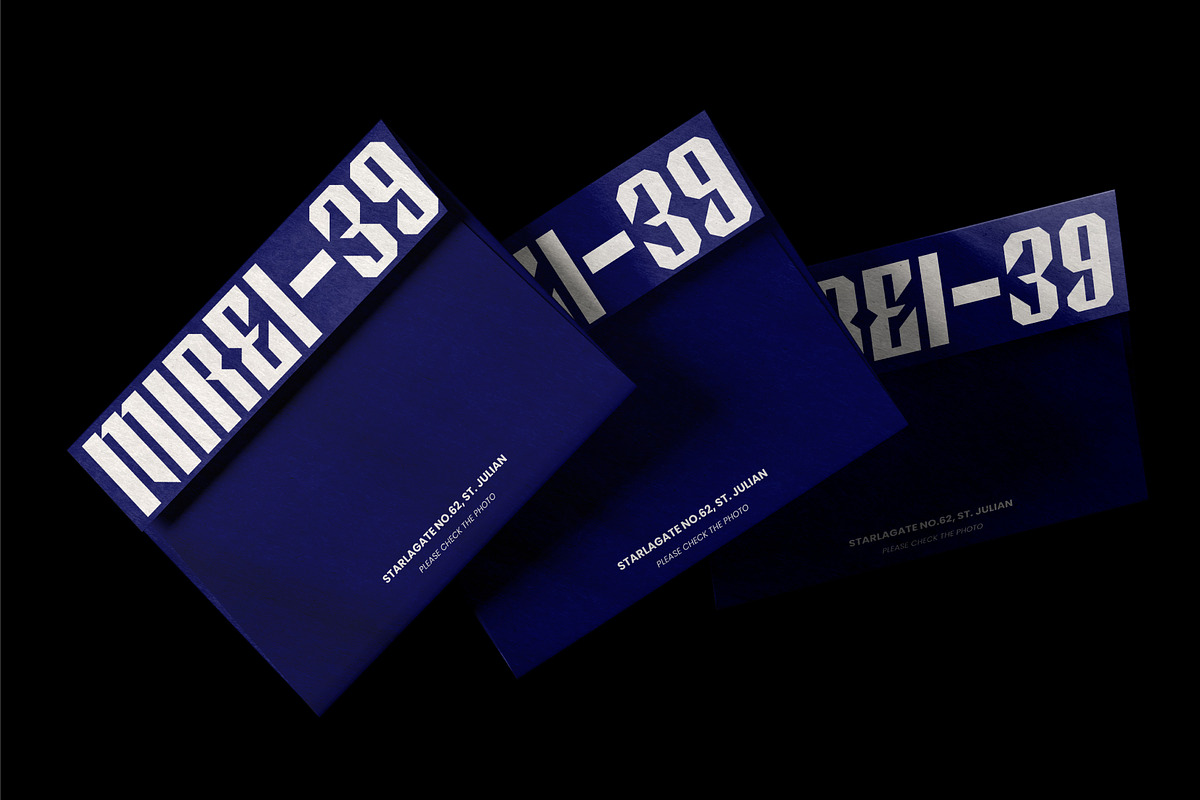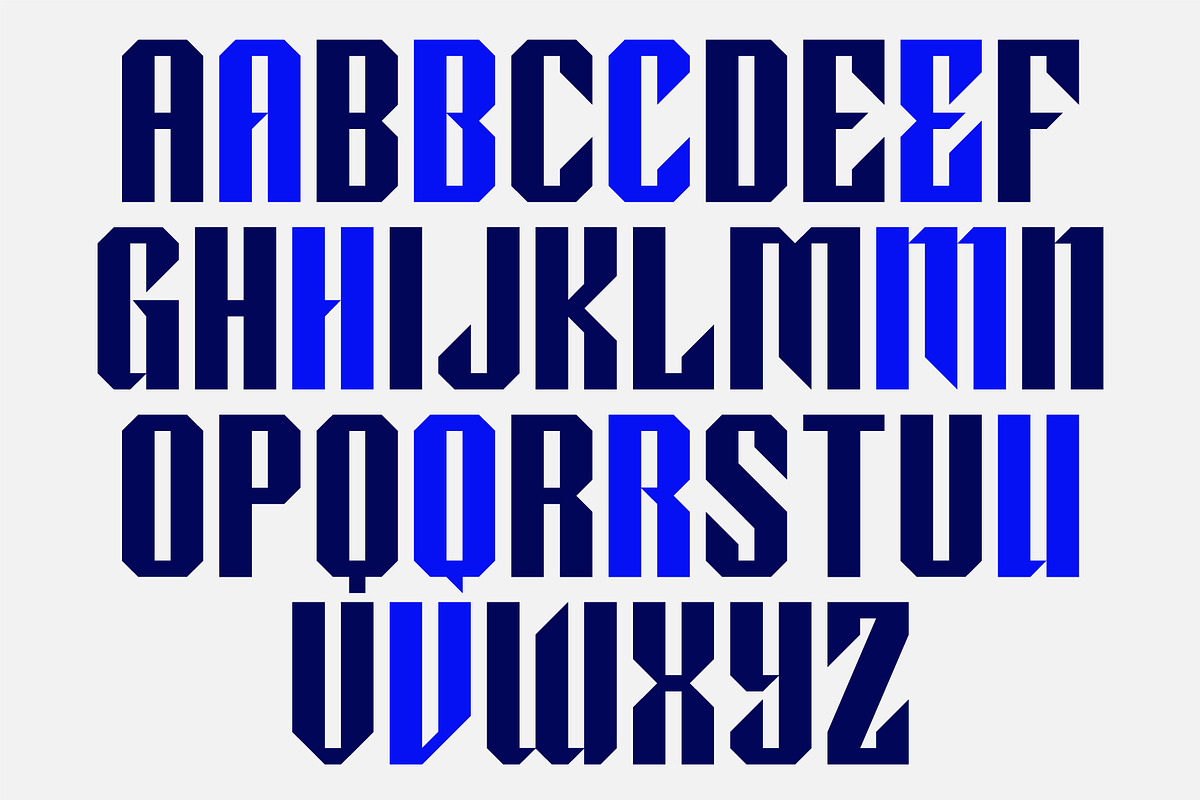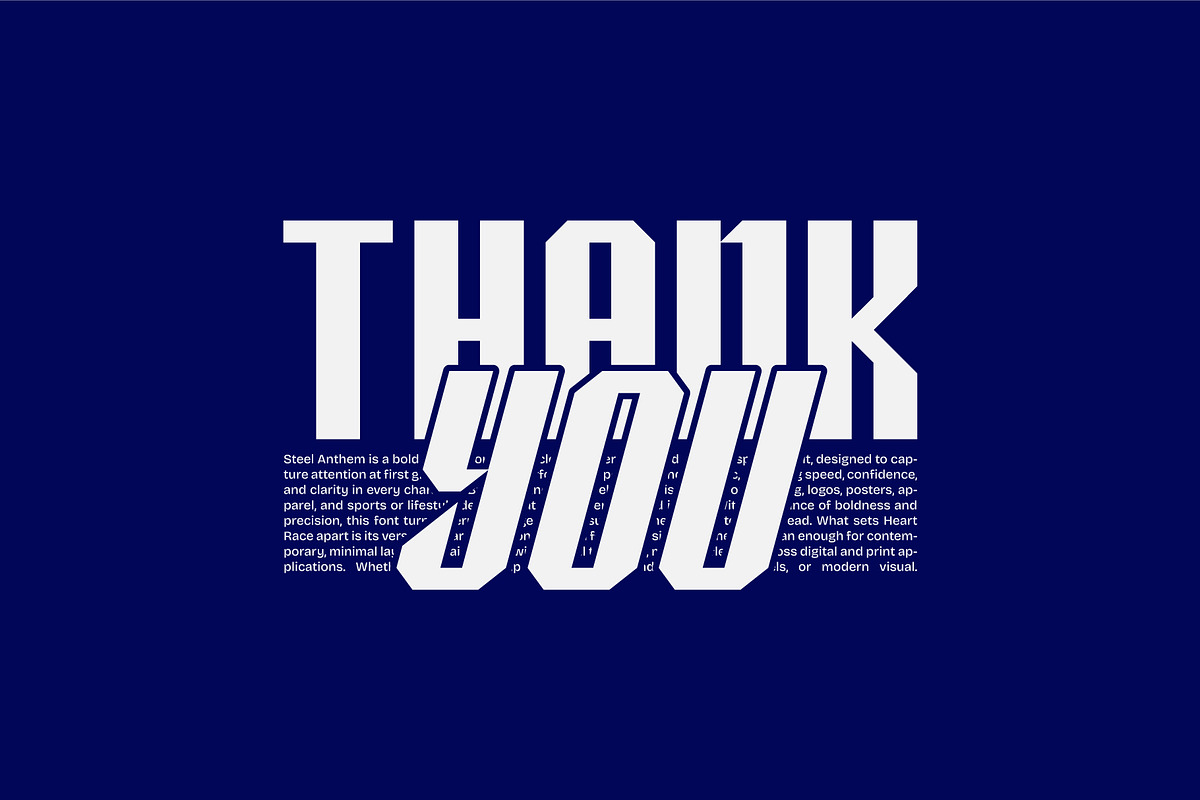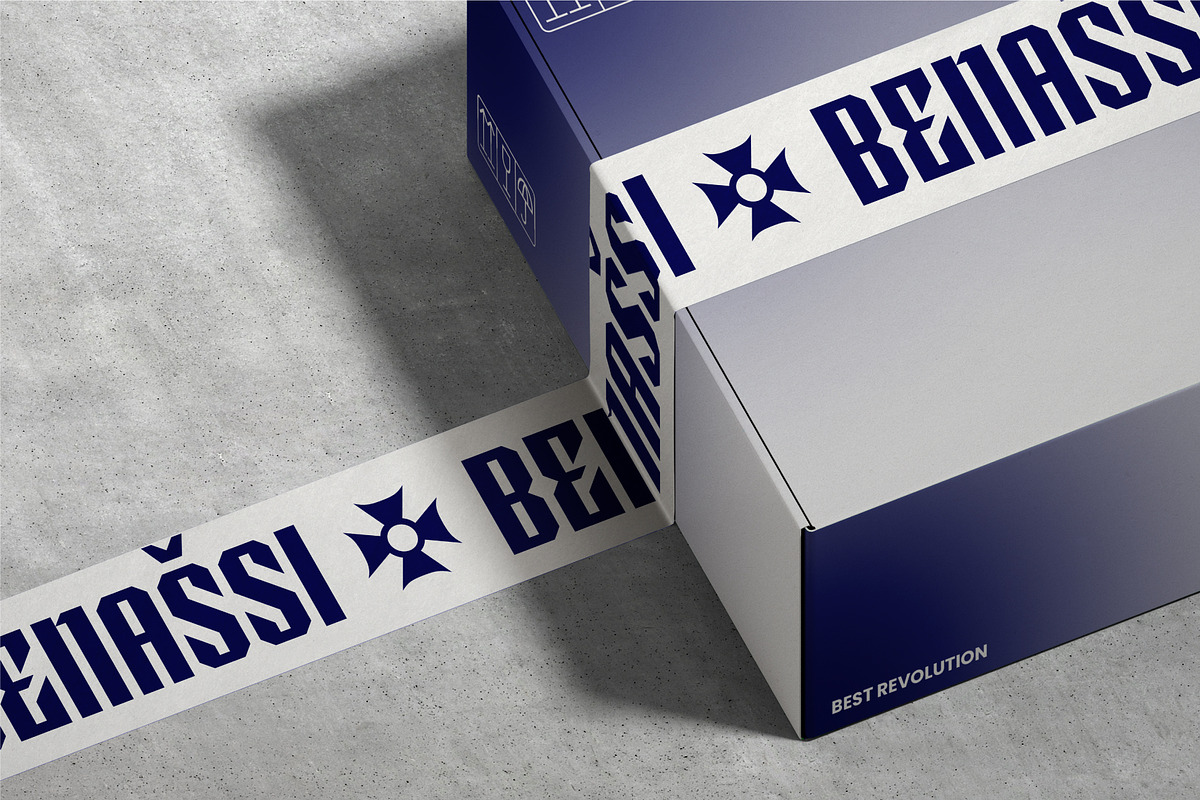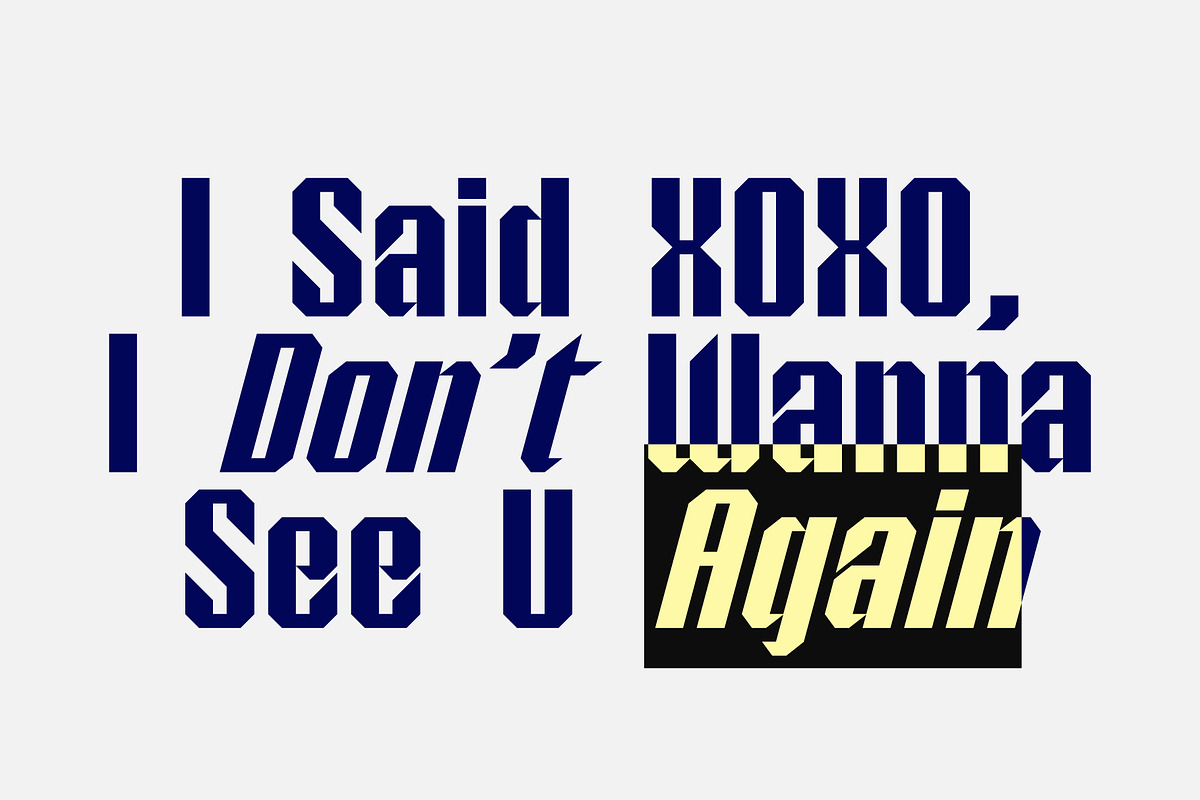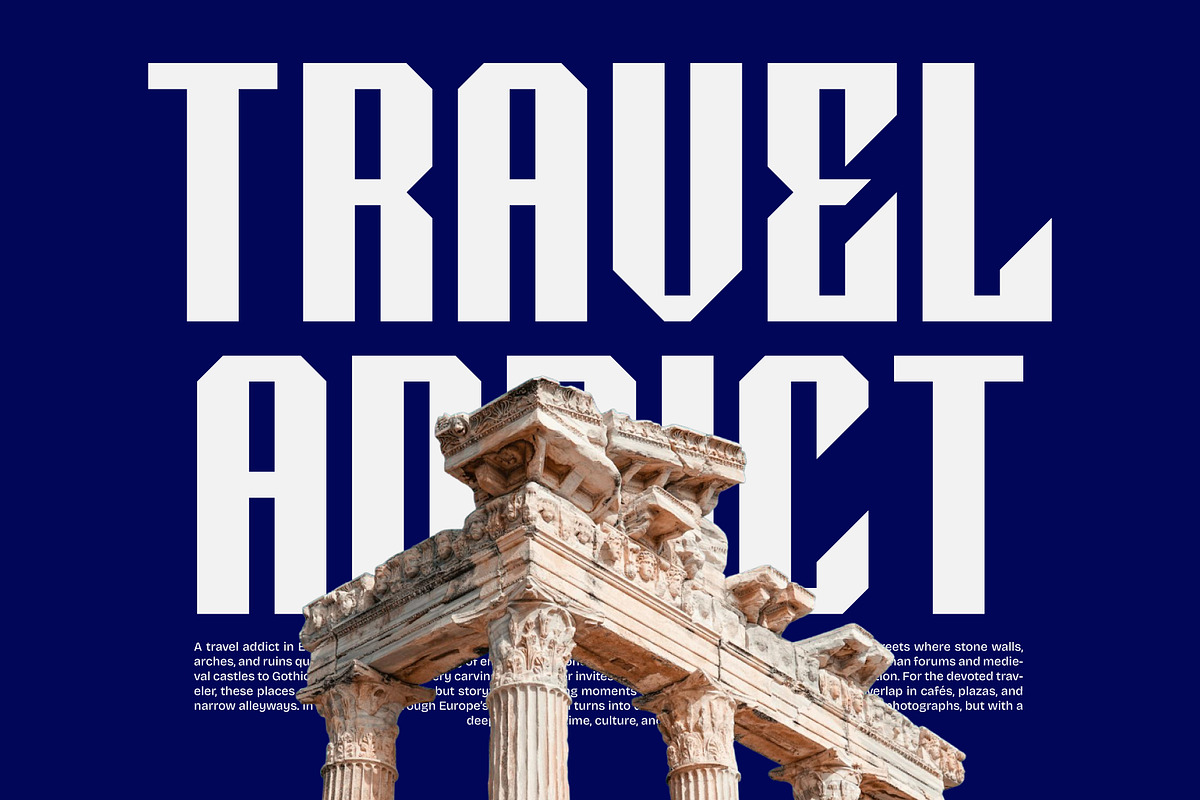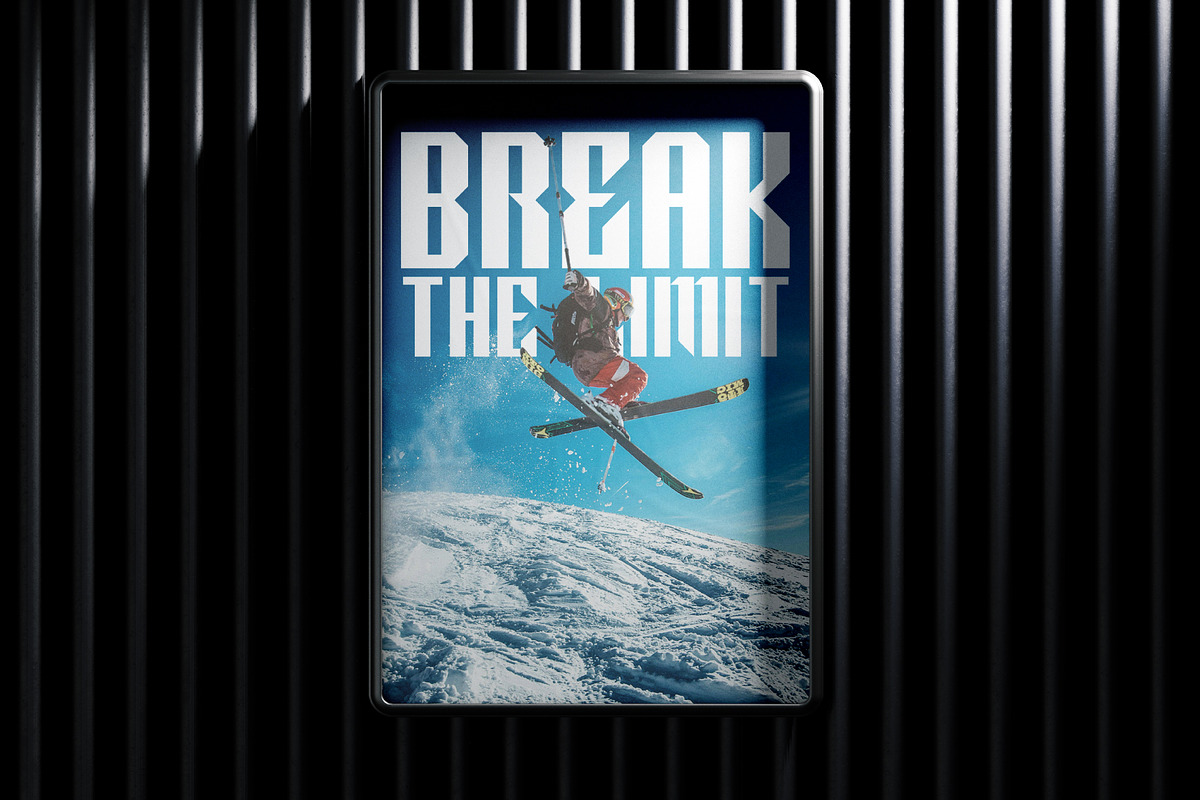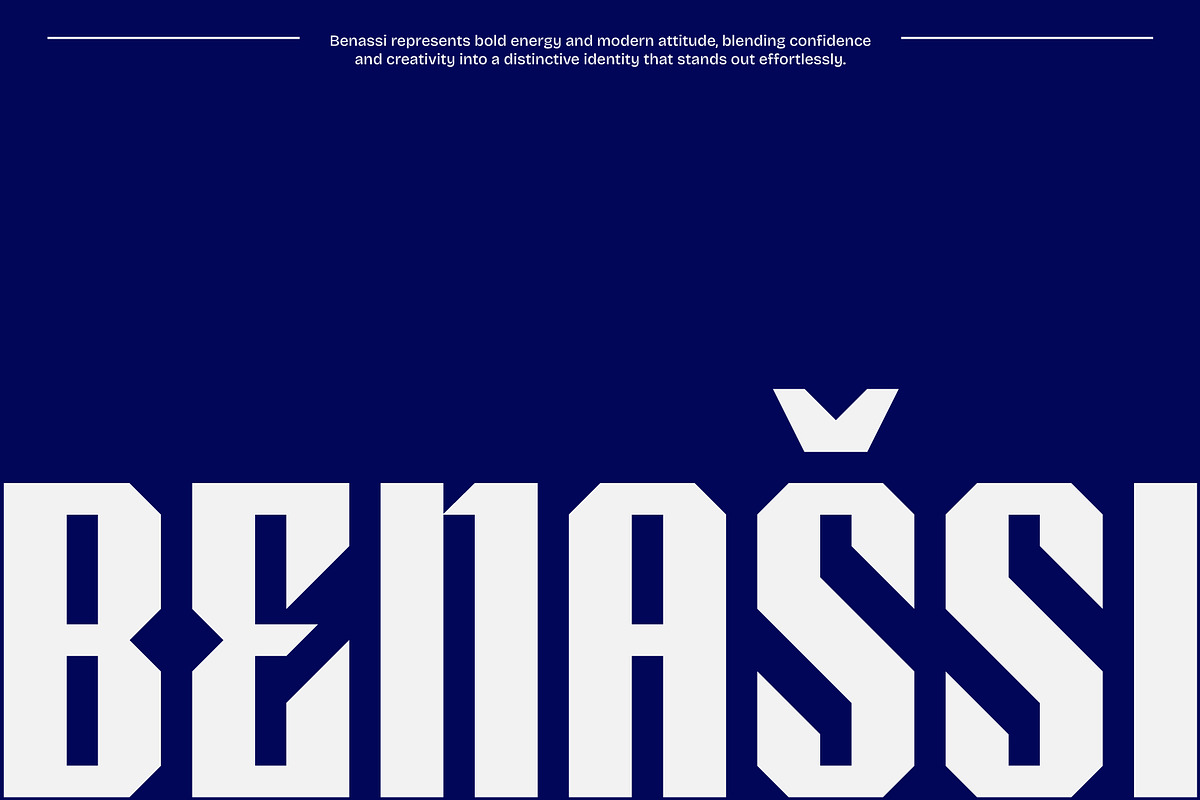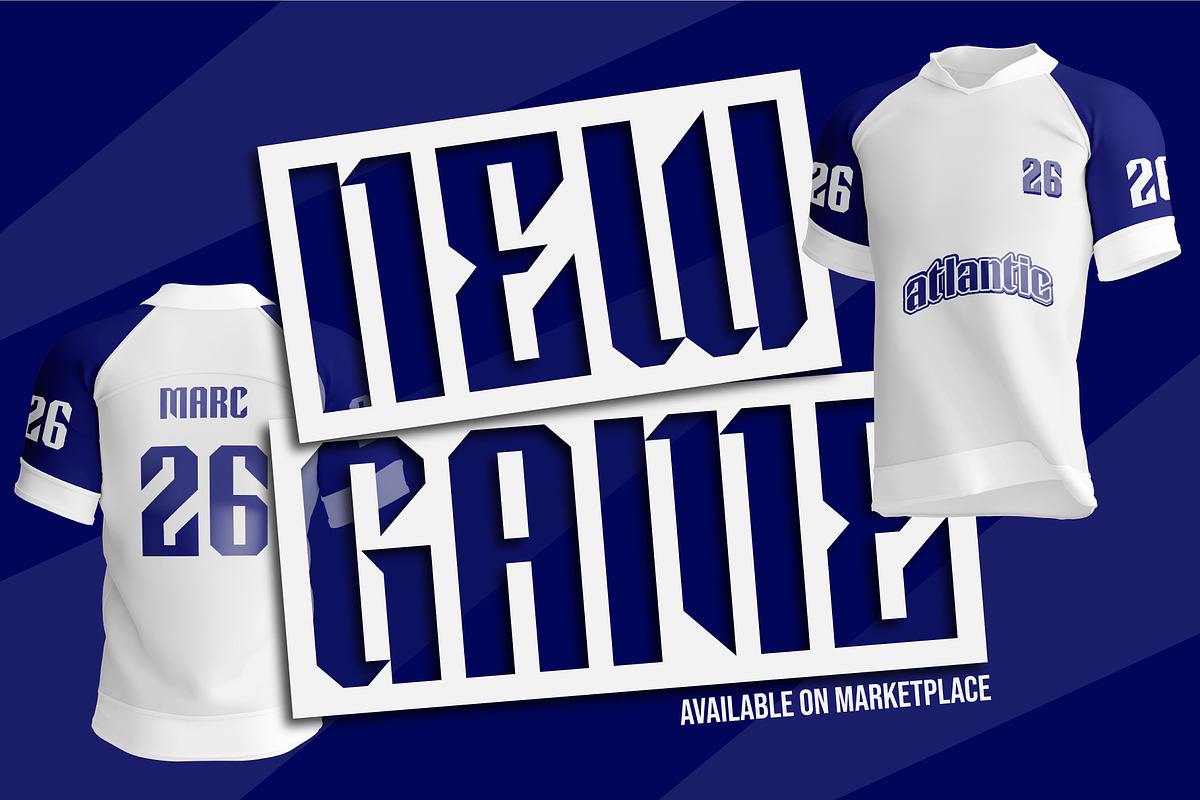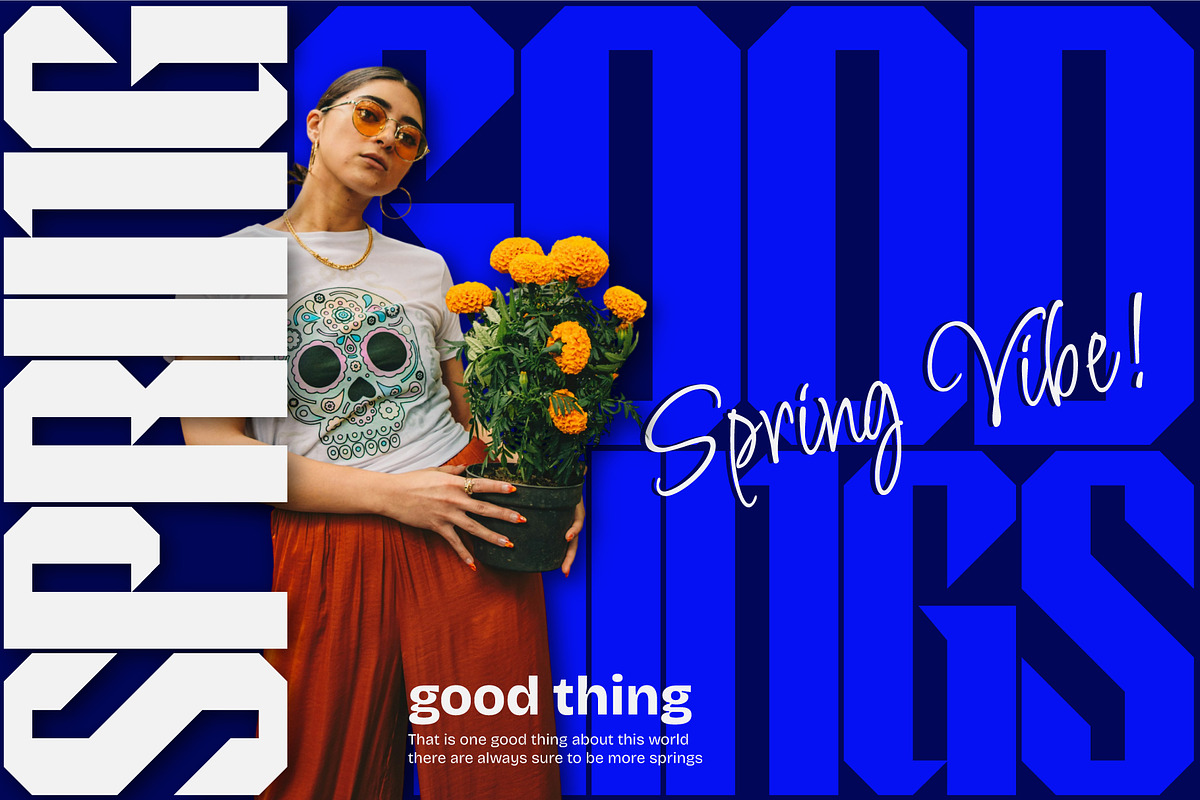
Steel Anthem - Bold Display Font
Steel Anthem Typeface is a futuristic display font built with bold geometry, sharp edges, and a strong industrial personality. Designed to command attention, this typeface combines modern structure with a high-impact visual rhythm, making it ideal for projects that demand a powerful and distinctive identity. Its tall, condensed letterforms create a striking presence that performs beautifully in headlines, branding, posters, and large-scale typography.
Inspired by cyber-industrial aesthetics and modern sports typography, Steel Anthem delivers a confident visual tone that feels energetic, premium, and forward-looking. The angular construction and unique character details give the font a memorable appearance while maintaining readability. Whether used for digital or print design, Steel Anthem creates a dramatic visual statement that feels sharp, modern, and unmistakably futuristic.
This typeface is perfect for logos, gaming graphics, apparel branding, packaging, music covers, editorial layouts, and urban-inspired visual identities. Steel Anthem works especially well in bold compositions where typography becomes the centerpiece of the design. It brings a sleek mechanical atmosphere that blends strength, speed, and contemporary style into one cohesive font system.